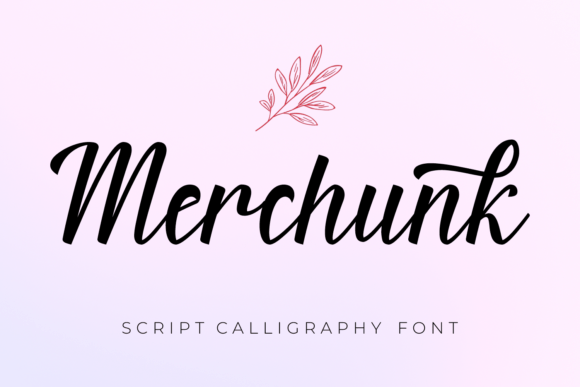
Merchunk
Merchunk is a font that feels both bold and elegant, with a modern yet approachable presence. Its clean lines and subtle curves give it a sense of sophistication that can easily elevate a design project. As a designer, I find Merchunk to be a versatile typeface that can adapt to various creative needs, from branding to digital assets.
First impressions of Merchunk are strong. The letters have a balanced structure that makes them feel trustworthy and professional. It’s not overly decorative, which means it can work well in both minimalist and more elaborate designs. The weight of the font gives it a solid foundation, making it suitable for both headlines and body text when used appropriately. However, its visual personality leans toward a modern aesthetic, which aligns well with contemporary branding efforts.
In logo design, Merchunk offers a great balance between legibility and style. It can serve as a primary typeface for logos that require a touch of elegance without being too formal. When paired with other fonts, Merchunk can act as a display font that adds character while maintaining readability. For brand identity projects, it's important to consider how Merchunk interacts with other elements like color and layout. A well-designed brand should maintain consistency, and Merchunk helps achieve that by offering a reliable base for visual hierarchy.
When it comes to packaging design, Merchunk can make a strong statement. Its clean appearance works well on product labels, especially when combined with a sans serif font for contrast. It's also effective for premium packaging where a refined look is essential. However, designers should be cautious when using Merchunk for small print or intricate details, as the font might lose clarity at smaller sizes.
For editorial design, Merchunk is a good choice for headlines and subheadings. Its readability is impressive, even when used in black and white. This makes it a practical option for magazine layouts, blog posts, and other content-heavy projects. Testing Merchunk alongside serif and sans serif fonts can help determine the best font pairing for specific contexts. It pairs particularly well with a clean sans serif for a modern look or a classic serif for a more traditional feel.
Social media graphics often benefit from a font that stands out but remains readable. Merchunk fits this requirement well, especially when used in short phrases or quotes. It can add a stylish touch to Instagram stories, Facebook posts, or Twitter banners without overwhelming the viewer. However, it's crucial to test Merchunk on different platforms to ensure it renders correctly across devices and screen sizes.
Web design projects can also benefit from Merchunk, particularly for headers and call-to-action buttons. Its modern typography makes it ideal for websites that aim to convey professionalism and approachability. When used in conjunction with a complementary sans serif font, Merchunk can create a cohesive and visually appealing interface. Designers should always check the font’s performance at various sizes, especially when considering responsive design principles.
Merchunk is not just a font—it's a design asset that can enhance a wide range of creative projects. Whether you're working on a logo, a flyer, or a social media graphic, Merchunk provides a reliable and stylish foundation. It's important to remember that no single font can solve all design challenges, so testing and experimentation are key to finding the right fit for each project.
When using Merchunk in real-life situations, keep an eye on readability and hierarchy. Test it in black and white to see how it holds up under different lighting conditions. Check small-size readability to ensure it remains legible in all contexts. Try it on real mockups to get a better sense of how it will appear in the final product.
In summary, Merchunk is a font that deserves attention. It brings a unique blend of modern typography and elegant design to the table. Whether you're working on a brand identity, a website, or a social media campaign, Merchunk can be a valuable addition to your design toolkit. Just remember to use it thoughtfully and always verify its licensing before committing to a project.